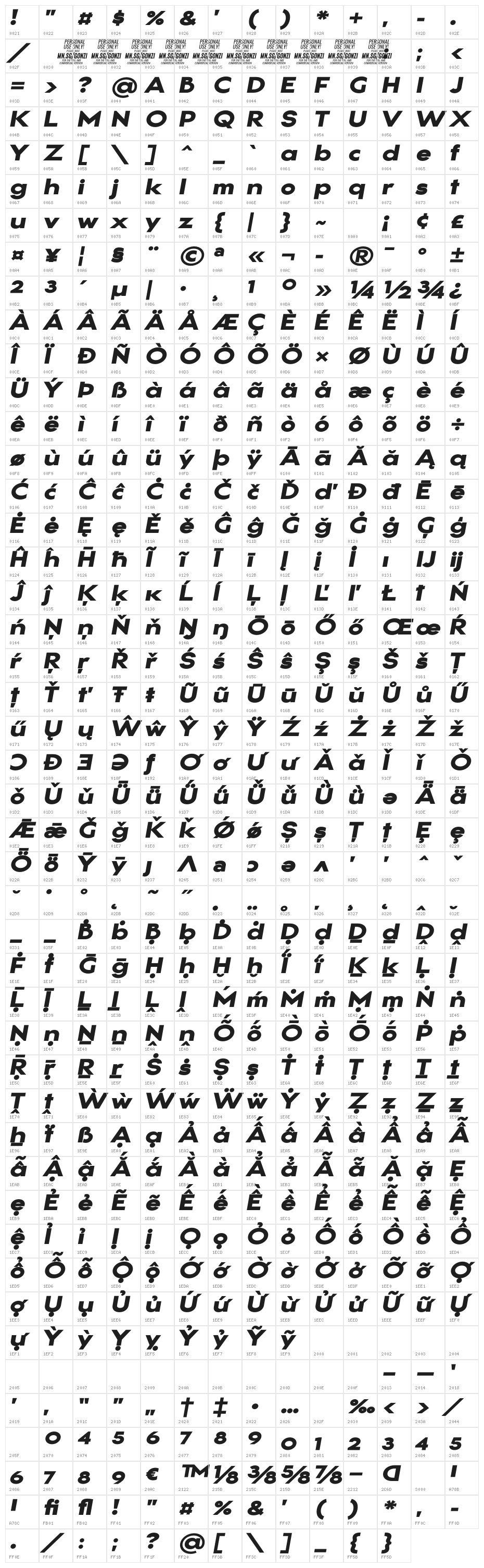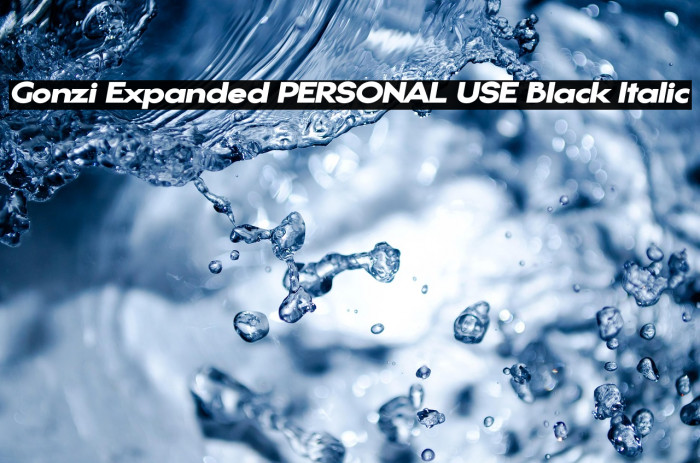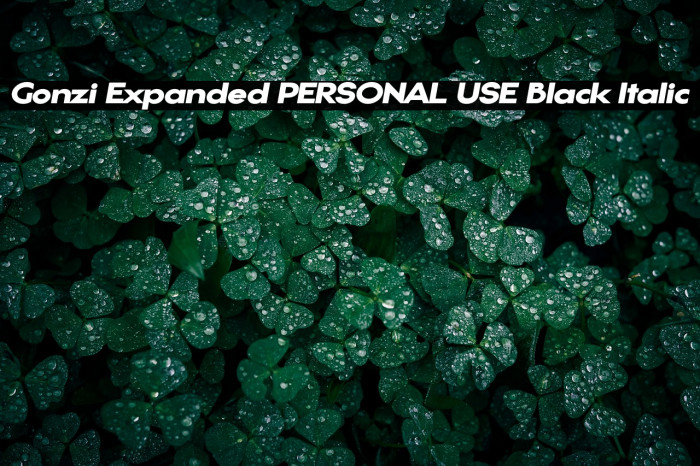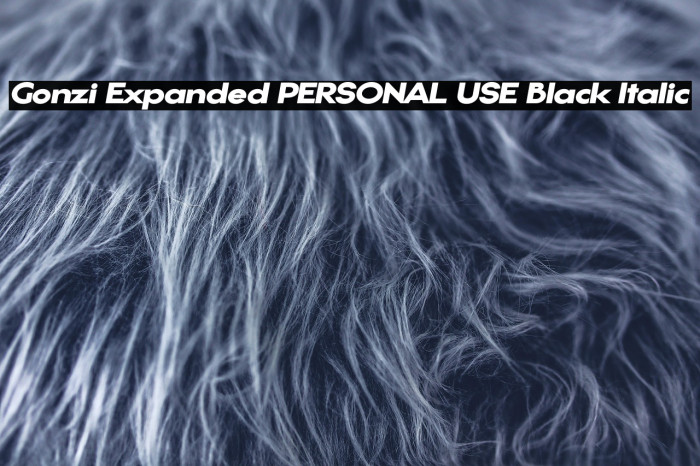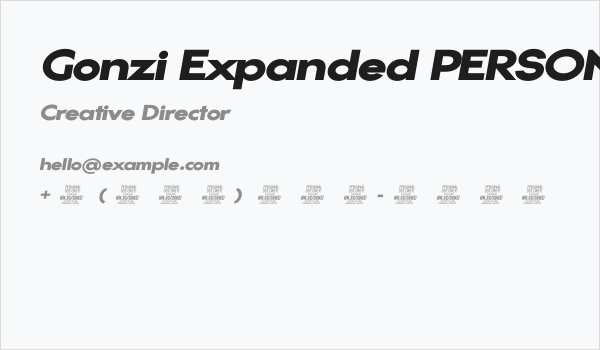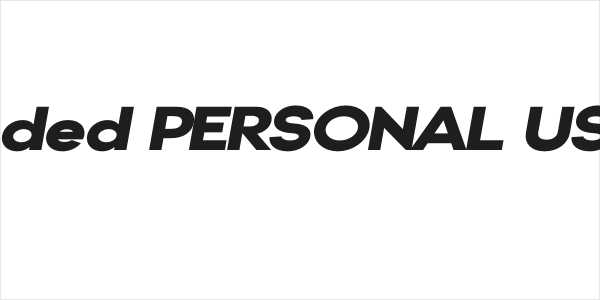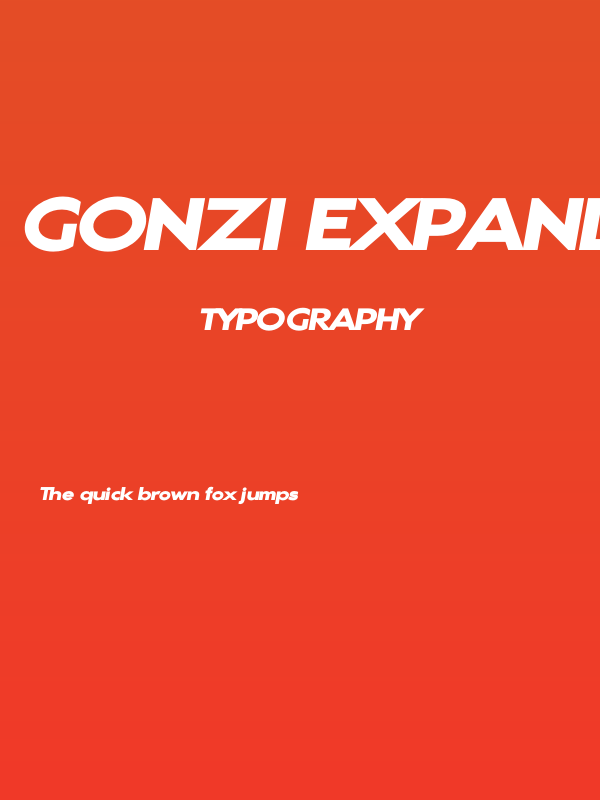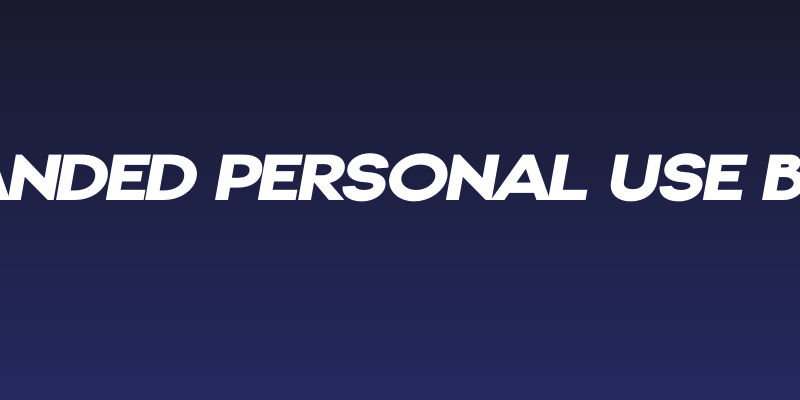
Gonzi Expanded PERSONAL USE Black Italic Font
Gonzi Expanded PERSONAL USE Black Italic Description
This font features a bold and italic style with a distinctly modern and dynamic appearance. The characters are designed with an expanded width, giving them a strong presence on the page. The strokes are thick and consistent, providing a high contrast that enhances readability and impact. The italic slant adds a sense of motion and energy, making it suitable for attention-grabbing headlines or titles. The uppercase and lowercase letters maintain a uniform style, with clean lines and smooth curves. Special characters are included, matching the overall bold and italicized aesthetic.